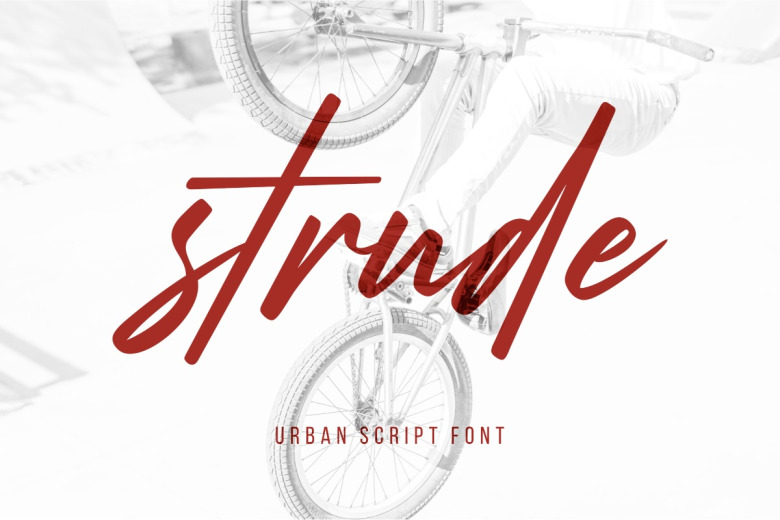
Strude Font
Introducing Strude Font. Strude designed and shared by Letteralle. Strude Script Font is a modern urban style font script. Strude comes with stylistic set (uppercase & lowercase), ligatures, and also supports multi language. With letters that have a distinctive style, Strude is perfect for logo design, merch, display, apparel, and many more.
Strude Handwritten Font